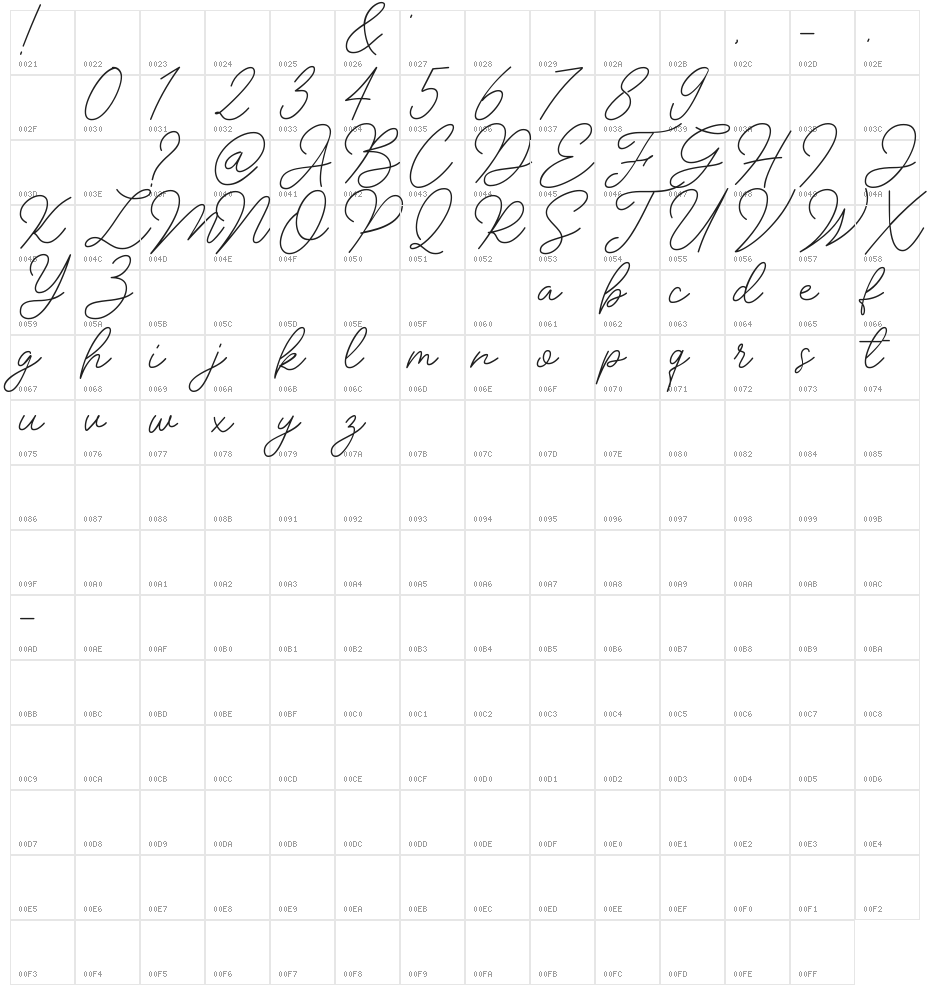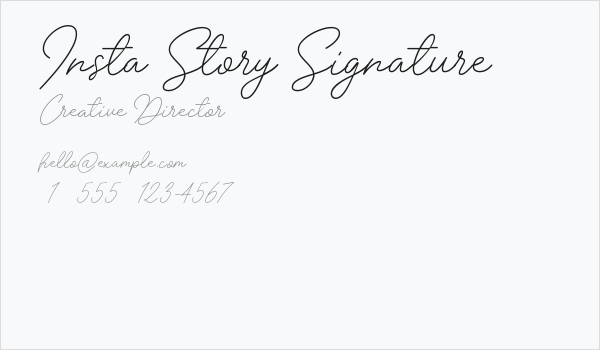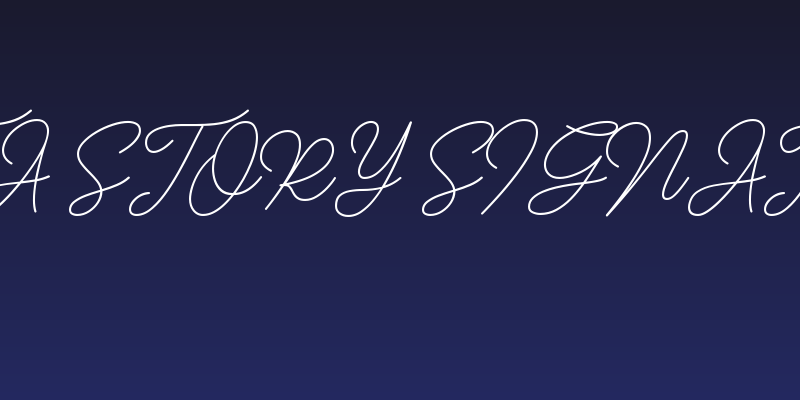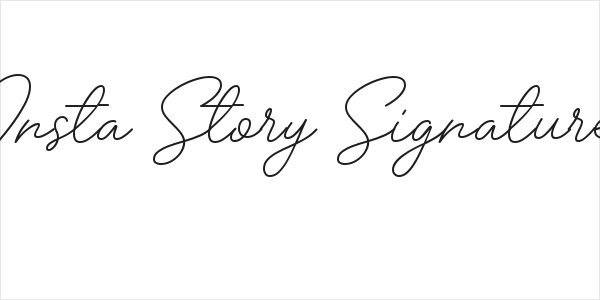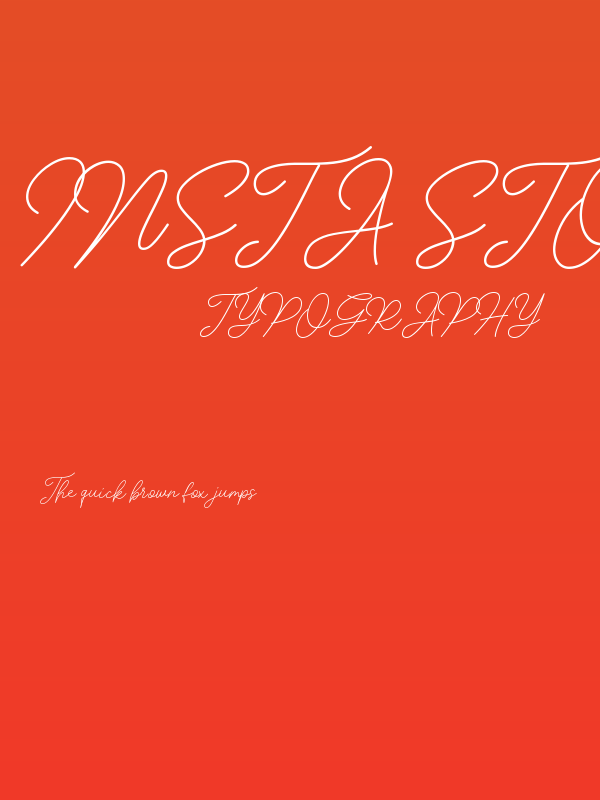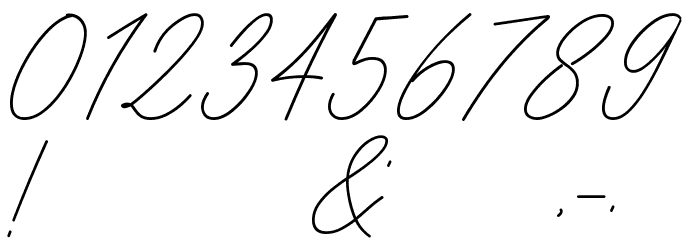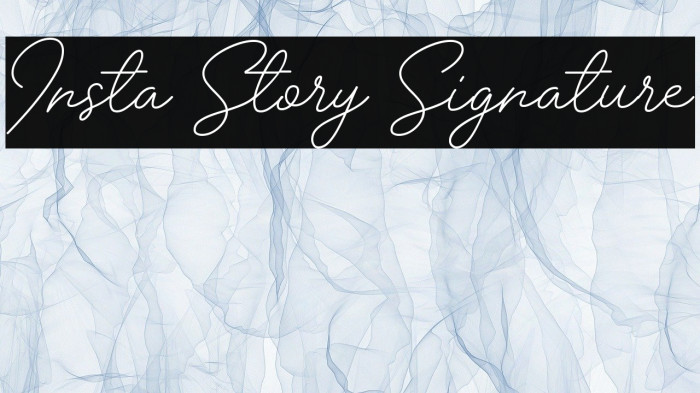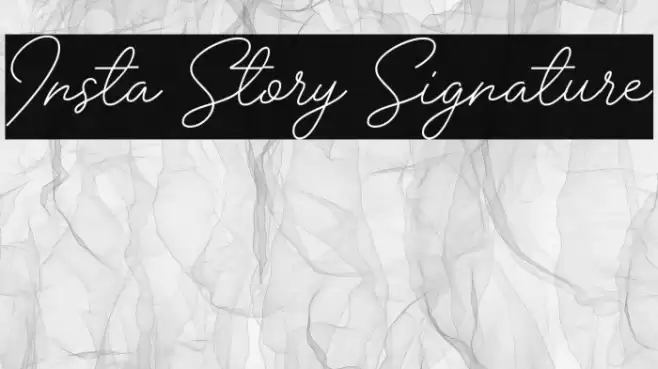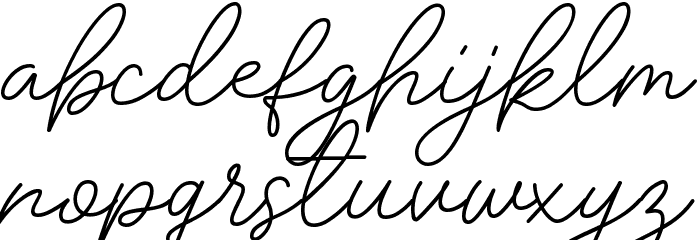
Insta Story Signature Font
Insta Story Signature Description
This elegant script font exudes a sense of sophistication and fluidity, characterized by its flowing, cursive style. The letters are interconnected, creating a seamless and graceful appearance. The uppercase letters are slightly more formal, while the lowercase letters maintain a casual, handwritten feel. The numerals and special characters are consistent with the overall style, ensuring a cohesive look. This font is ideal for projects that require a personal touch, such as invitations, greeting cards, or branding materials. Its delicate strokes and balanced proportions make it versatile for various design needs.
| Overall Style | Elegant, Handwritten |
| Use Case | Logos, Invitations, Greeting Cards |
| Proposed Projects | Ideal for invitations, greeting cards, branding materials, and any project requiring a personal touch. |